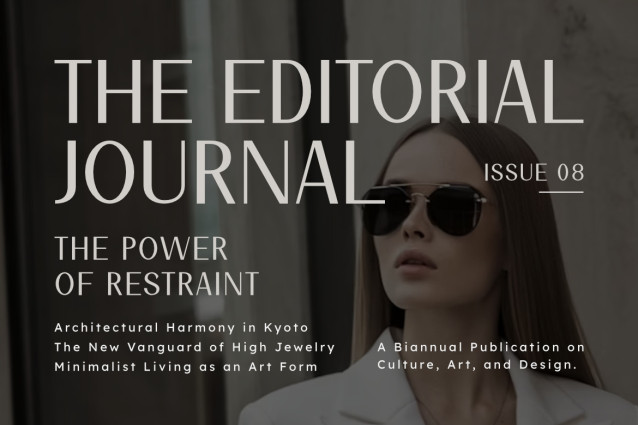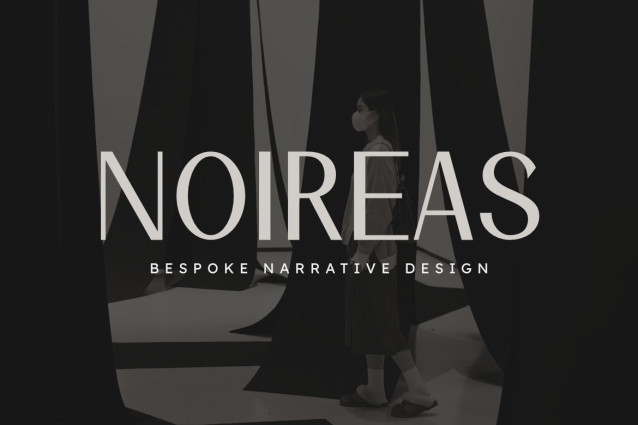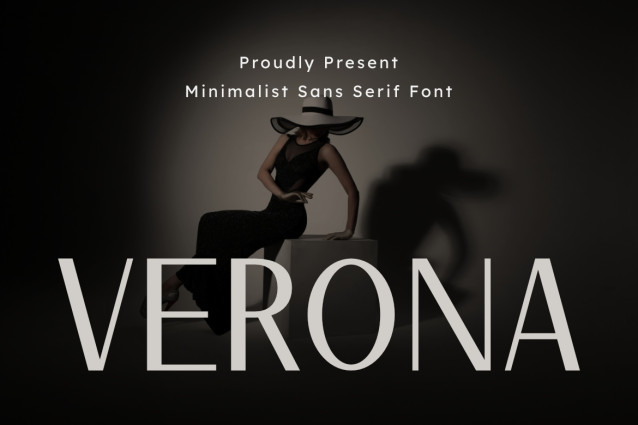
Verona is an elegant, refined, and minimalist sans serif display font, engineered to bring a sophisticated visual identity, clean geometric balance, and a luxury display aesthetic to contemporary design layouts. Featuring sleek linear strokes, balanced letterforms, and high-end modern proportions, Verona introduces a premium fashion magazine identity, cosmetic branding showcase, luxury architectural presentation, and prominent digital media design built to claim subtle yet absolute visual focus.
This font family is the ultimate choice for creative directors, publication designers, and luxury brand managers looking to implement a sophisticated typography identity for major text hierarchies. Whether you are developing bold corporate enterprise logotypes, high-fashion editorial covers, luxury perfume and skincare packaging, cinematic film title sequences, architectural portfolio headers, or prominent digital web banners, Verona stands out with supreme legibility and commanding aesthetic confidence.
- Minimalist Display Structure: Optimized with clean lines and balanced proportions for elegant, high-impact title compositions.
- Sleek Luxury Geometry: Refined linear shapes crafted to deliver a modern, high-end visual tone.
- High-End Editorial Aesthetic: Clean proportions ideal for luxury magazine layouts, beauty product campaigns, architectural branding, and digital media.